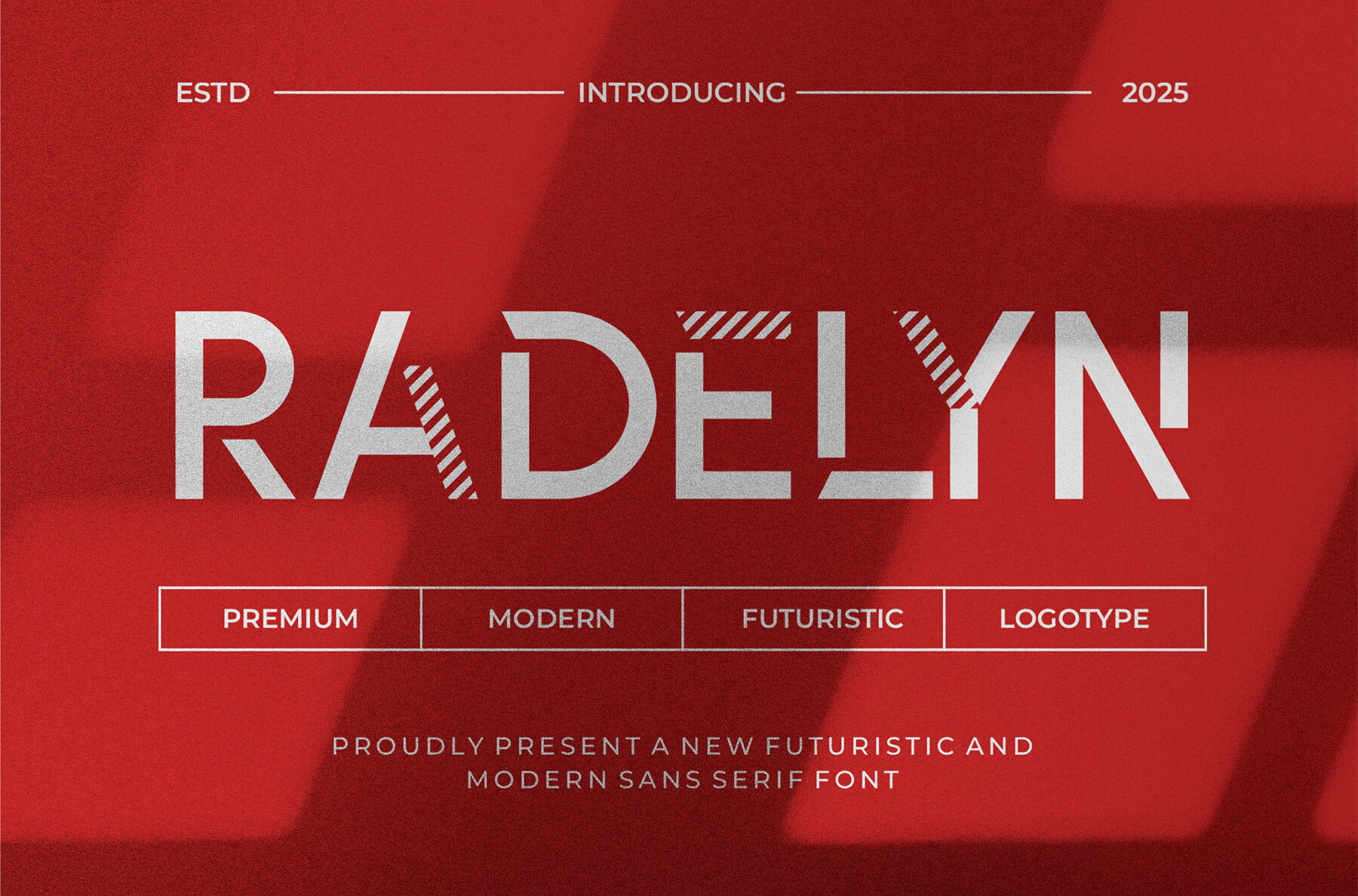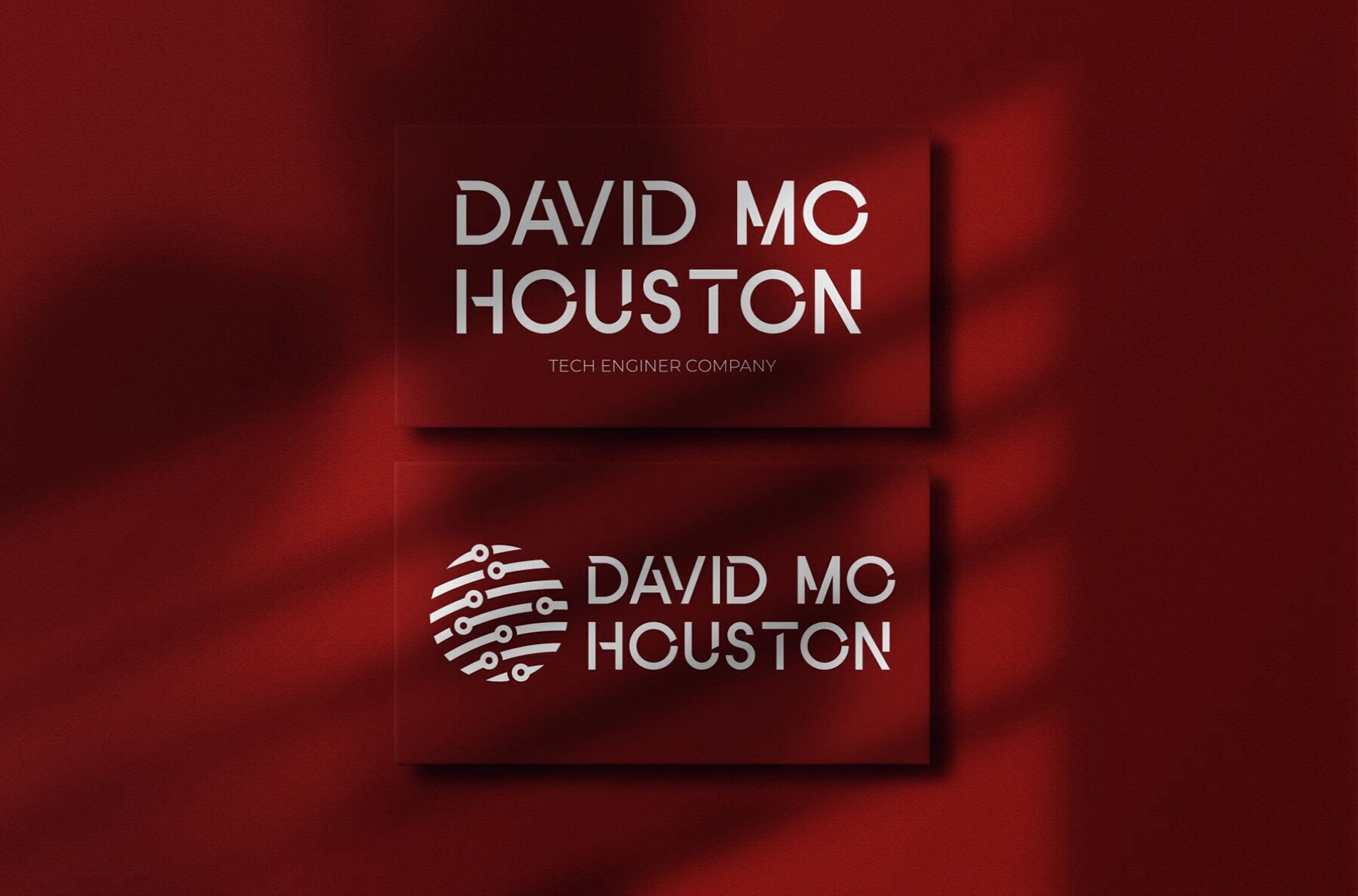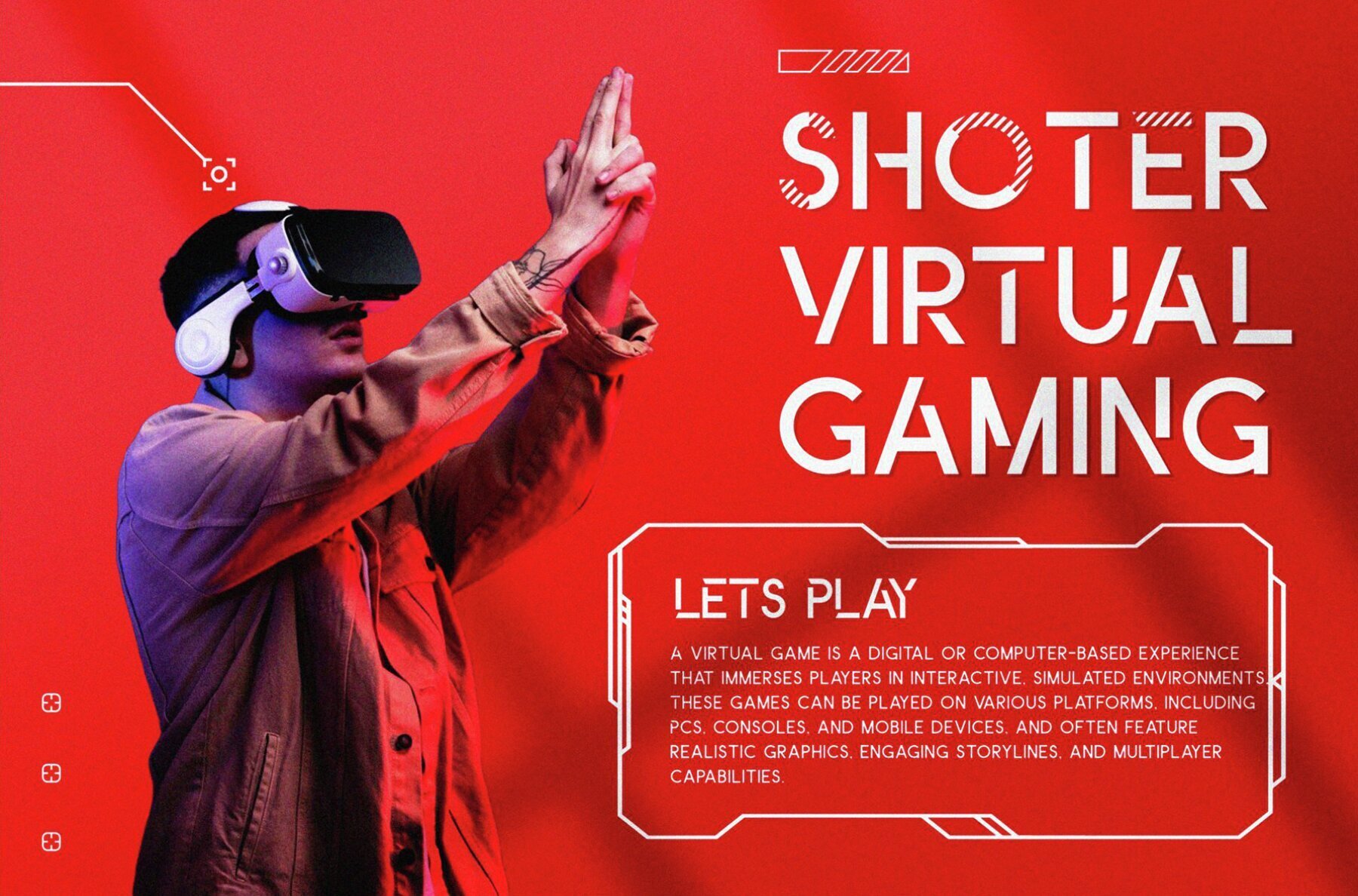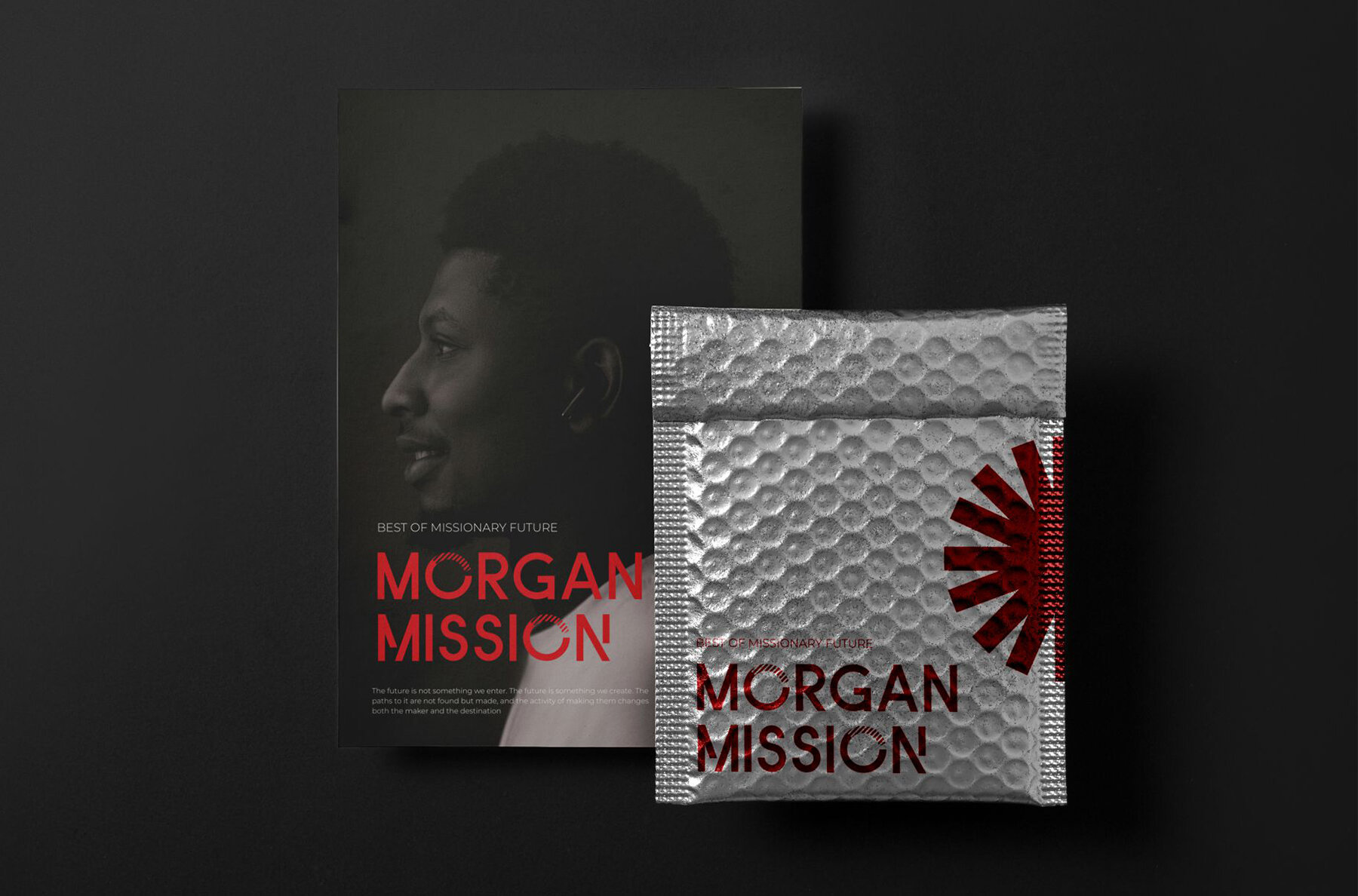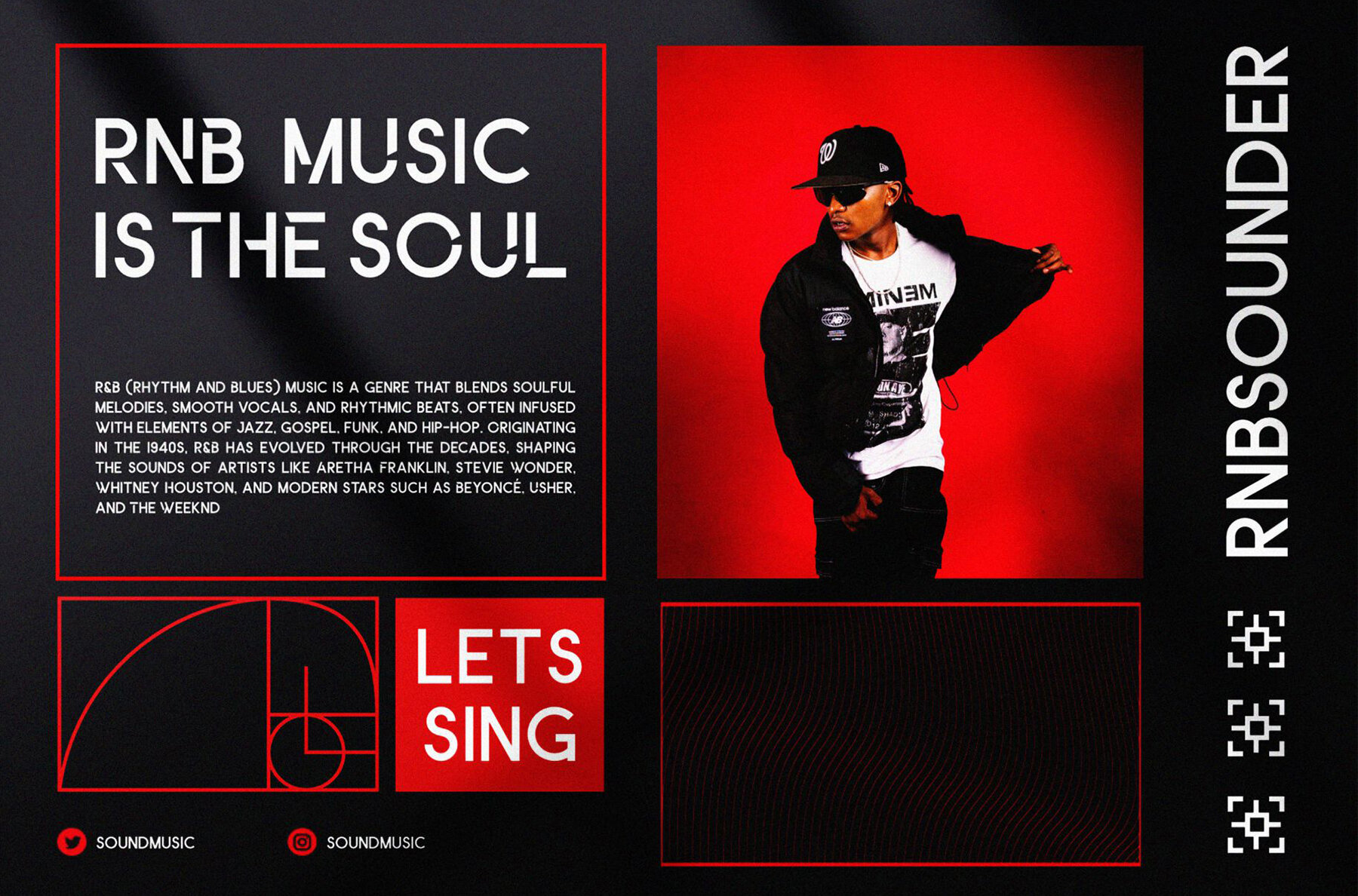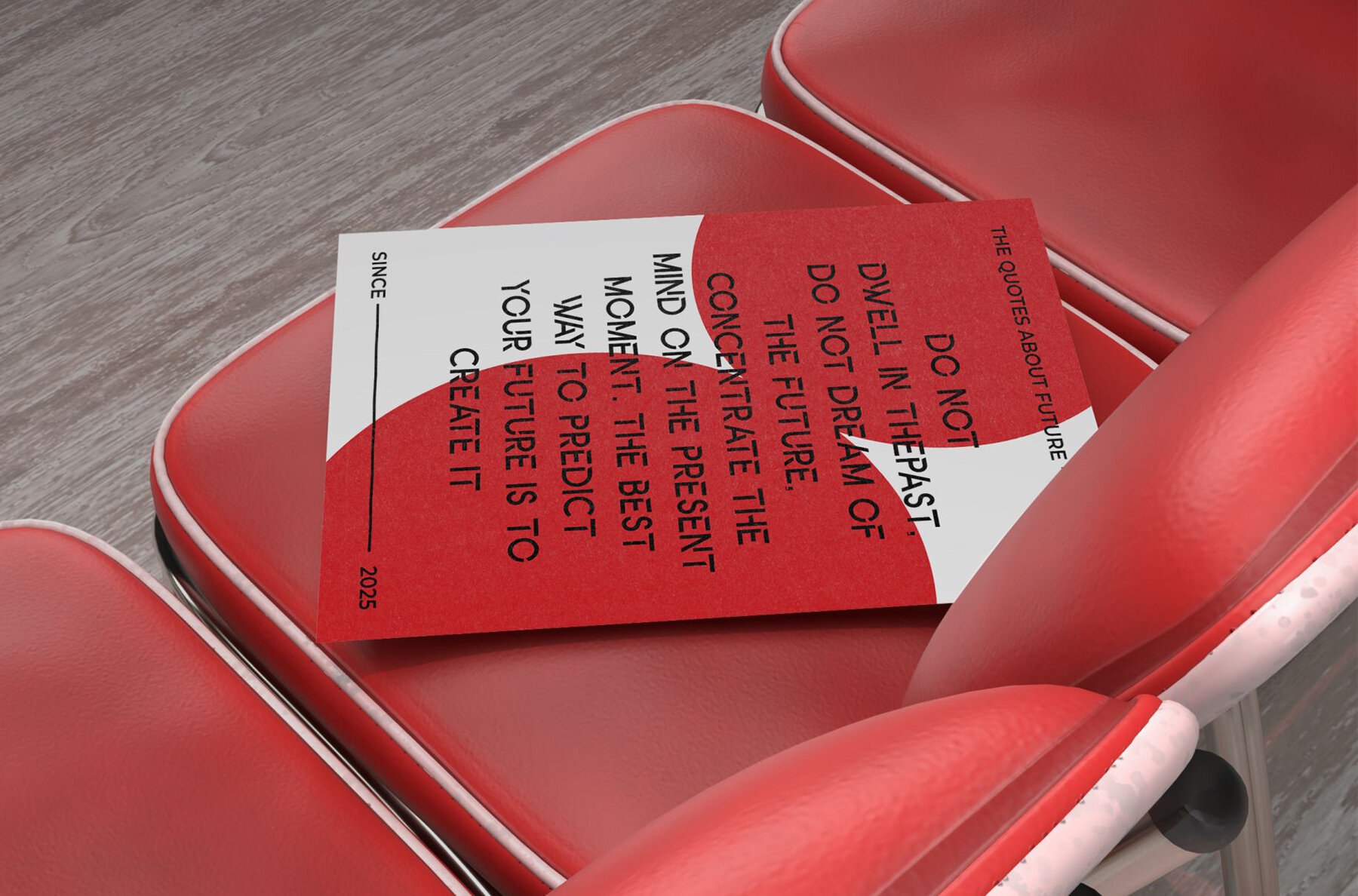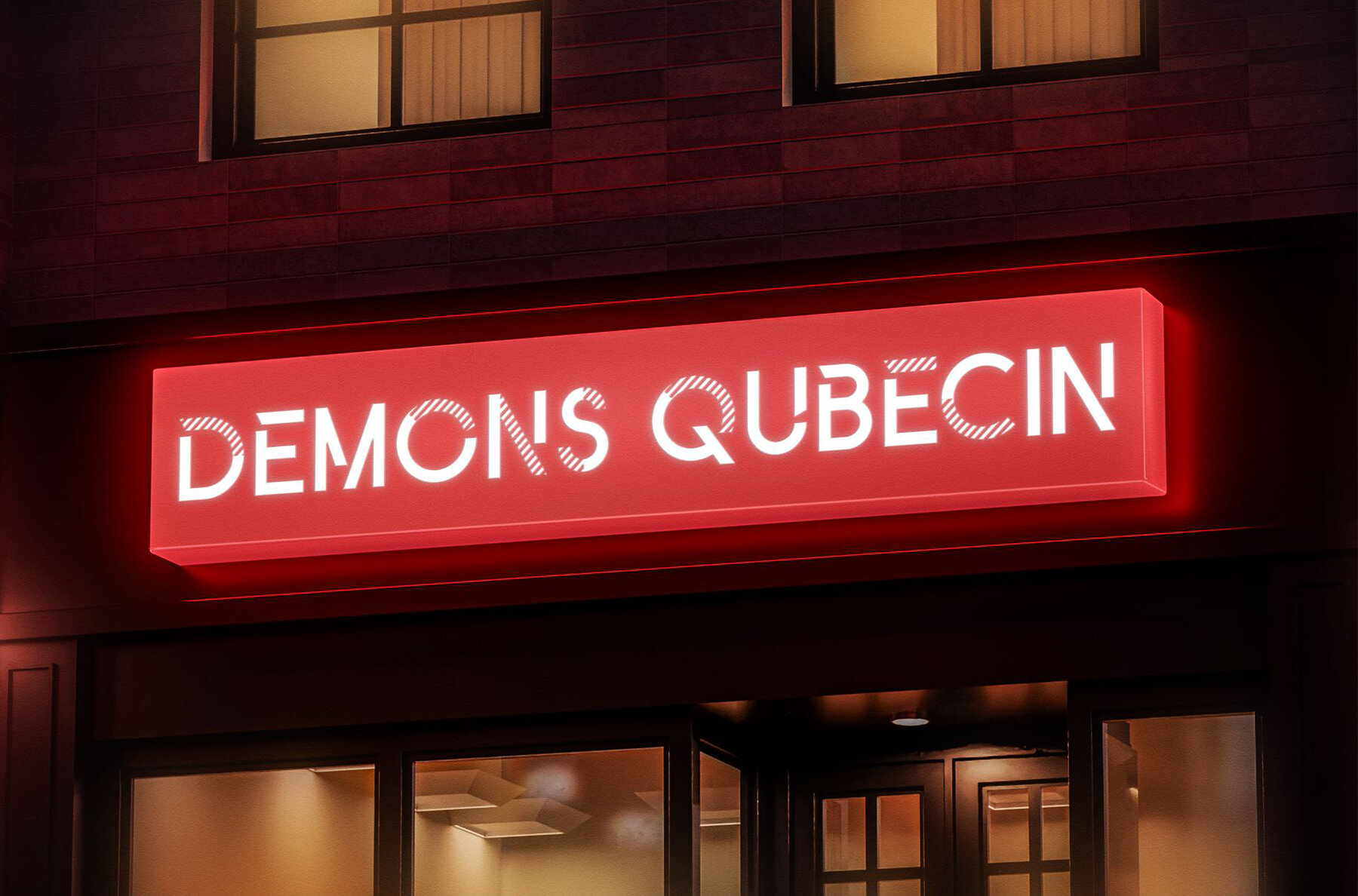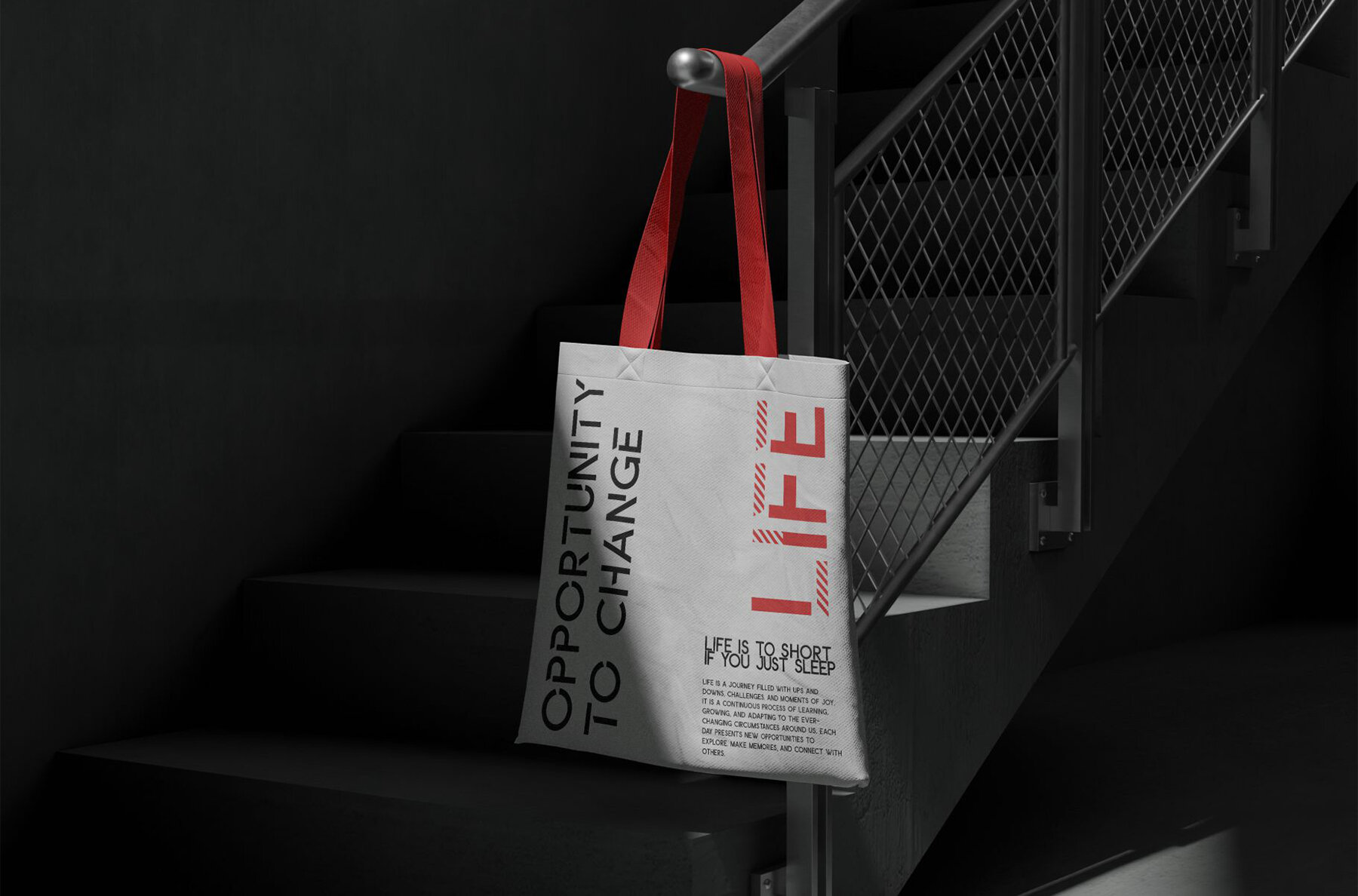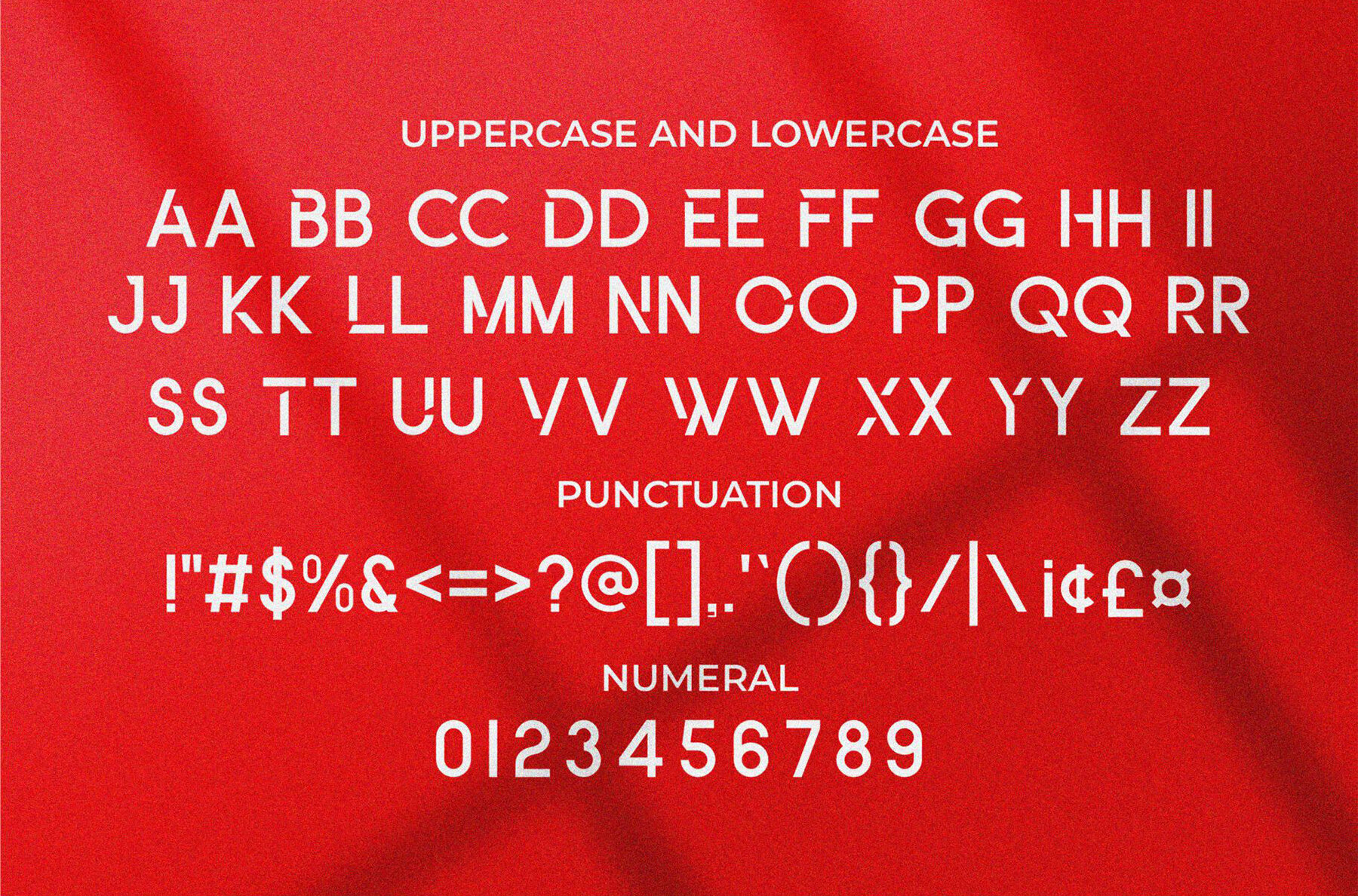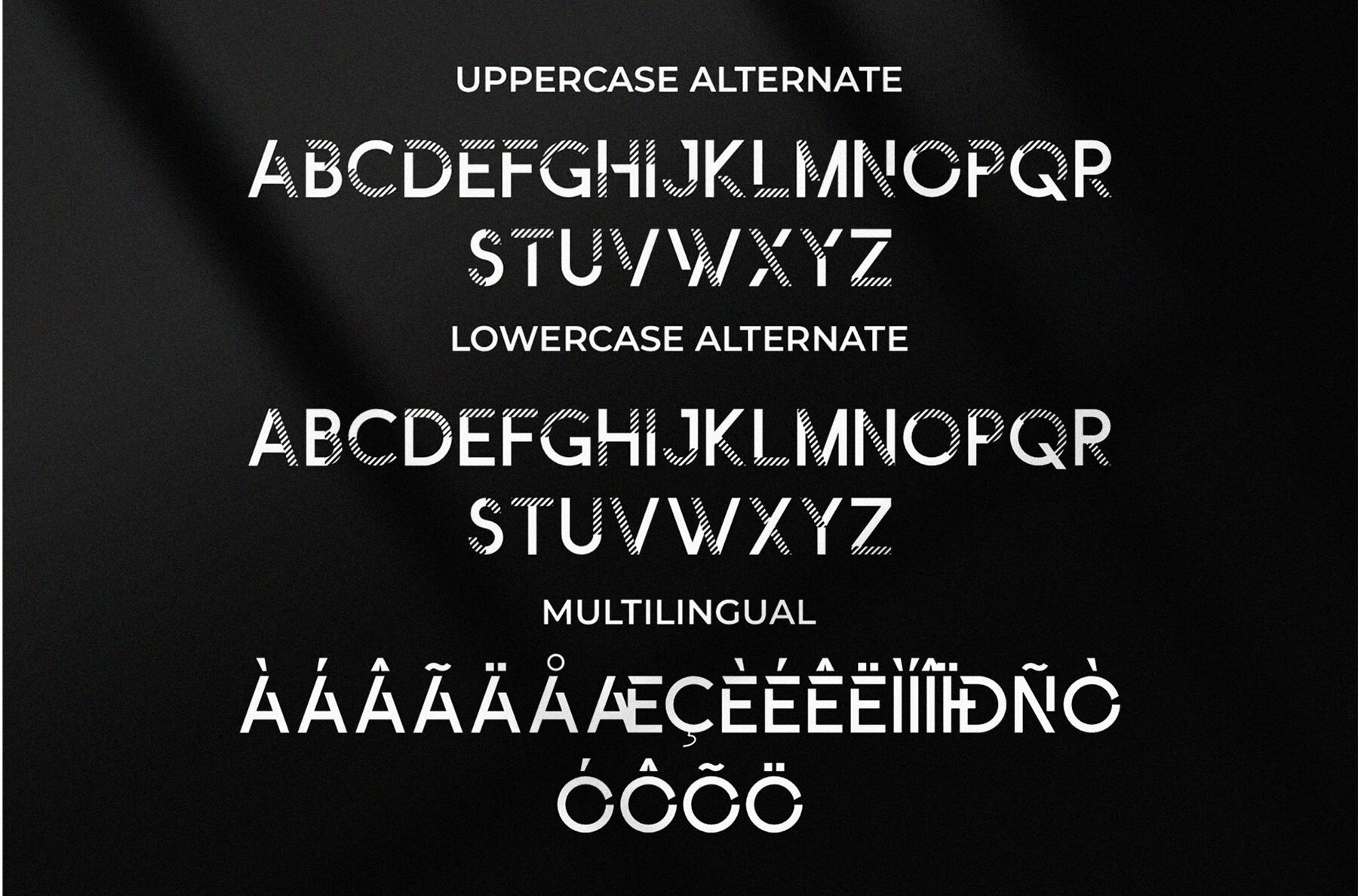
Radelyn Font
Radelyn Regular
Discover the elegance of Radelyn Serif, a sophisticated allcaps font offering both style and versatility for your branding and logo projects. This serif typeface boasts beautifully crafted characters, making it ideal for a wide array of uses—from invitation cards to business cards. Perfectly suited for cool logos, movie titles, book titles, and brand names, Radelyn Serif brings a touch of class to any design.Radelyn Serif: A Timeless Allcaps Font